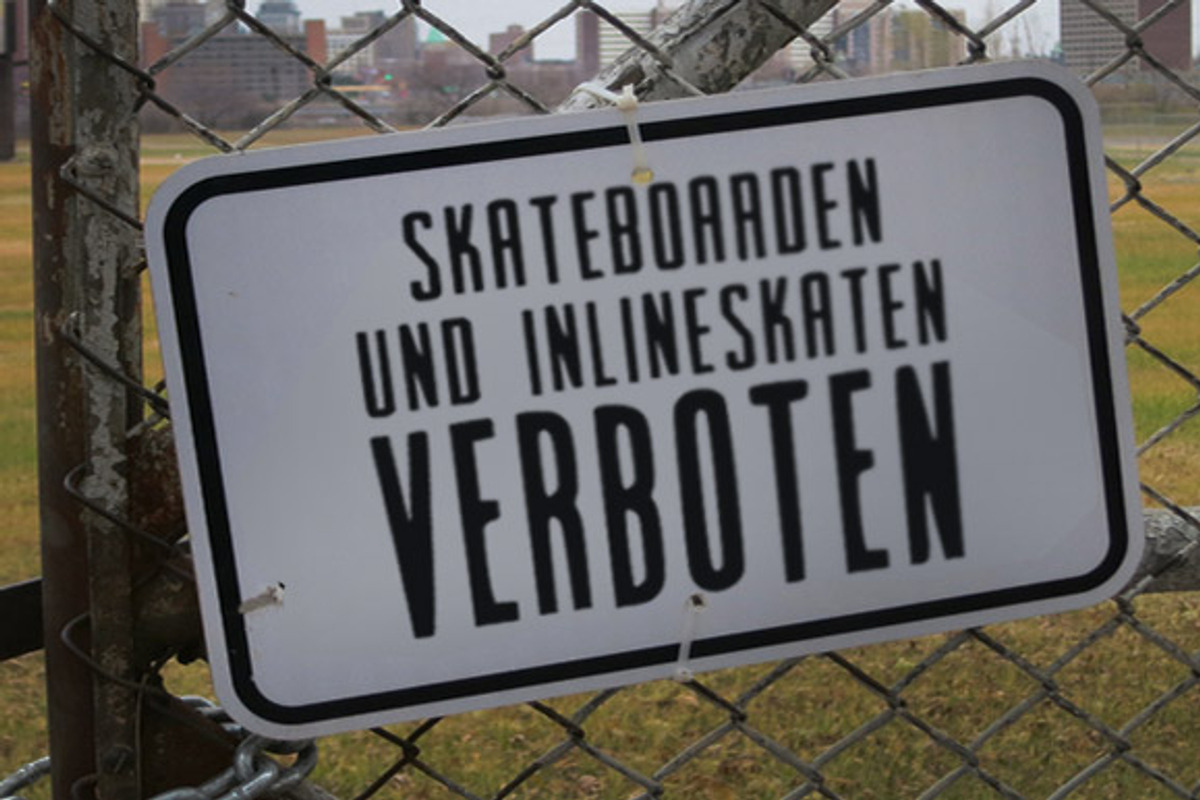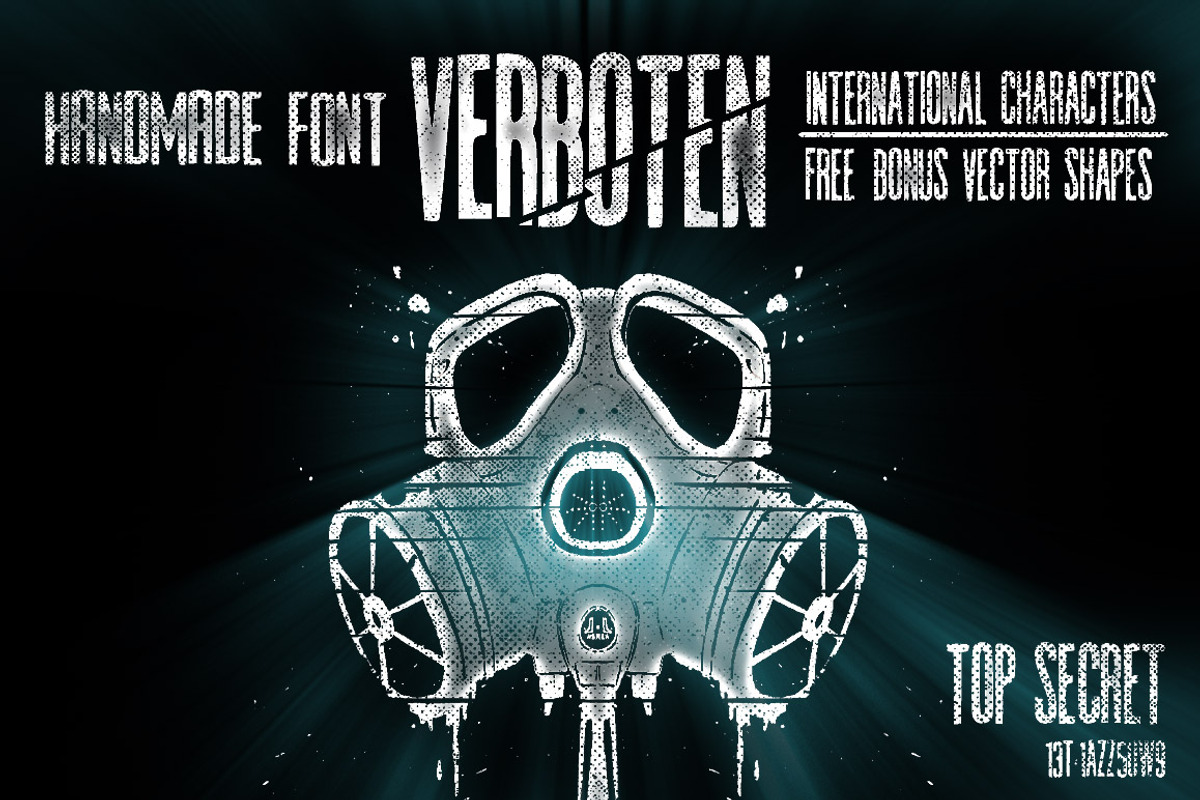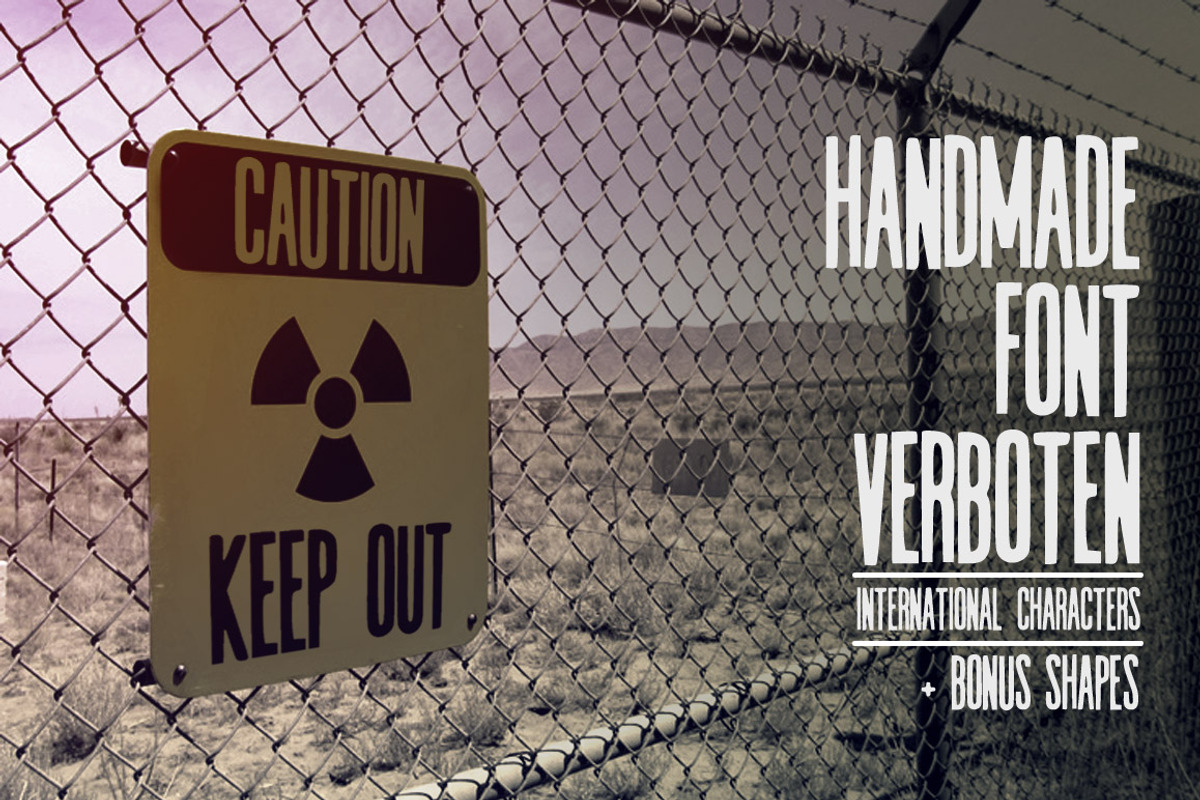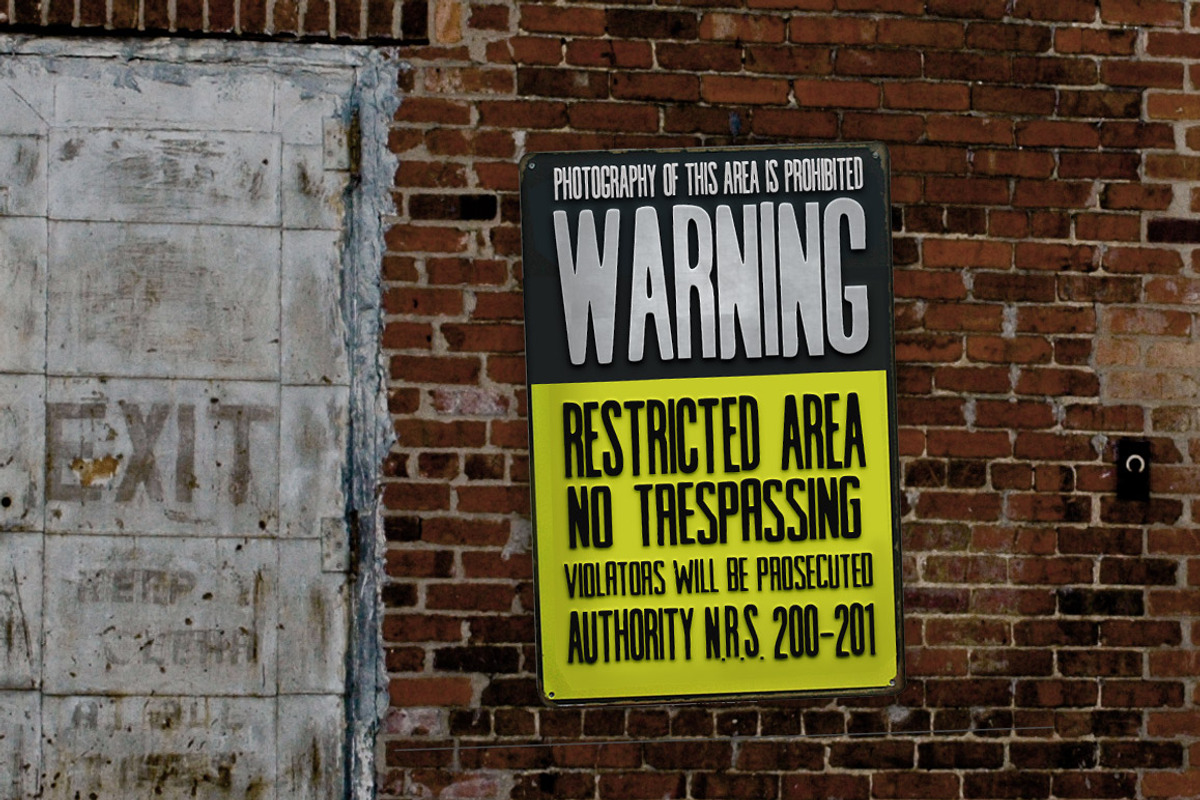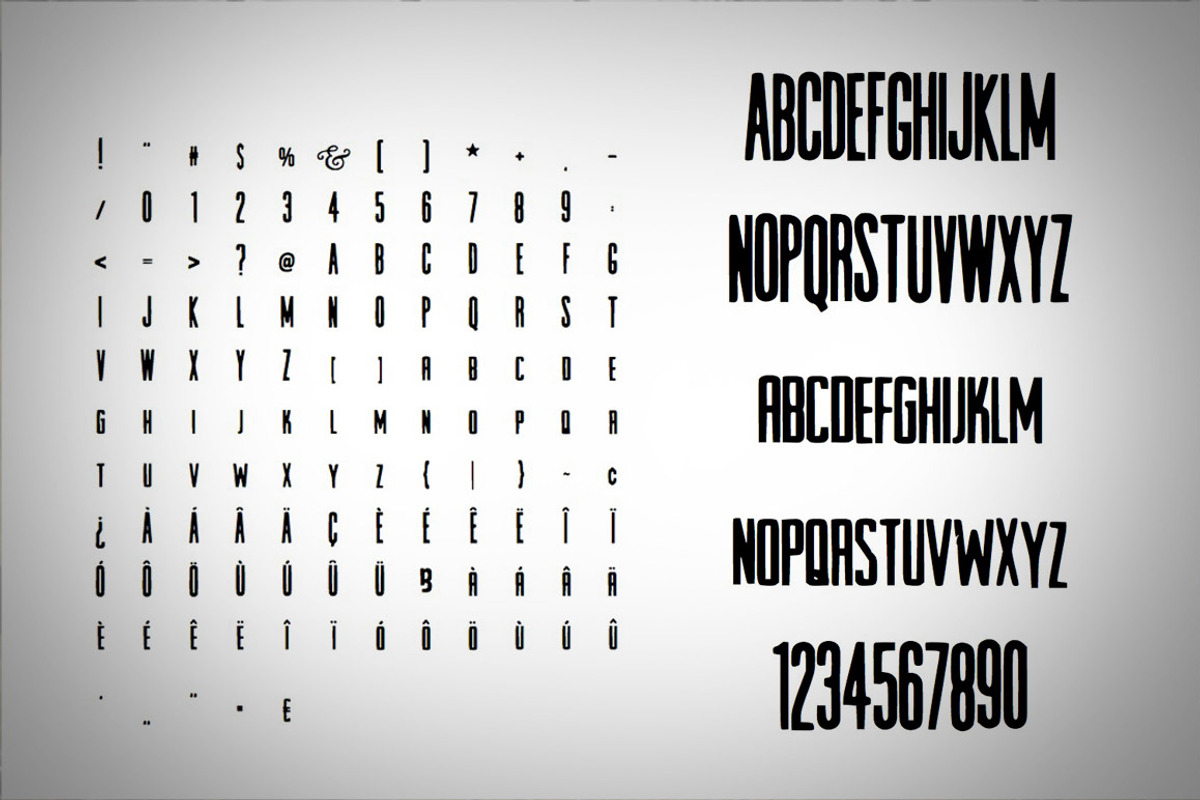
Handmade Font Verboten
Handmade Font Verboten by the little wonder shop is a font selected for branding, posters, packaging, typography.
- Handmade Font “Verboten” This rough font with attitude features many International characters and it’s perfect for all kinds of signage, hea
Why Handmade Font Verboten is worth a look
Handmade Font Verboten by the little wonder shop fits naturally into Branding, posters, packaging, typography.